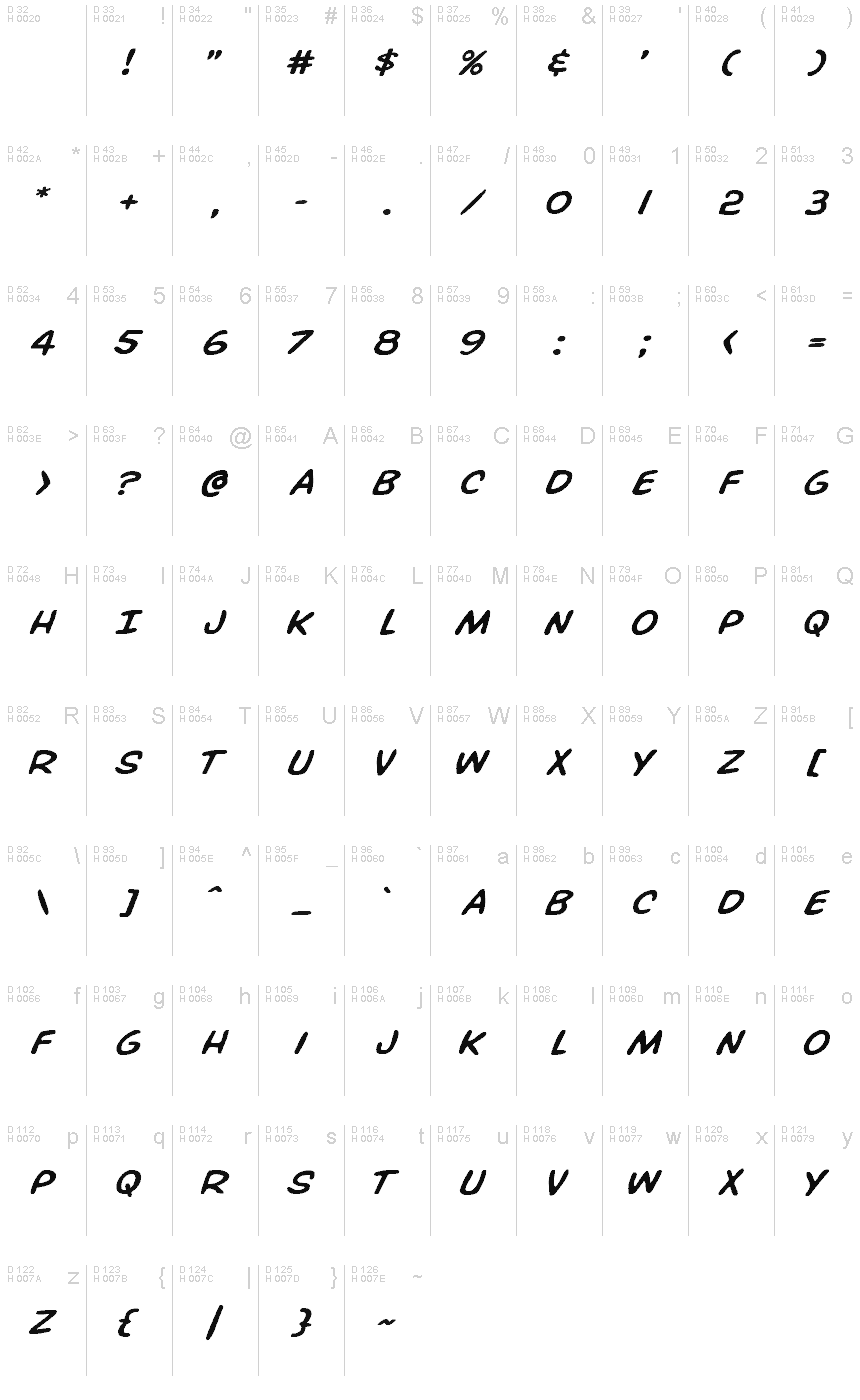
Overstreet Bible Expanded Italic is a captivating font that exudes a playful, comic-inspired essence. Designed by Daniel Zadorozny, this display typeface boasts an unmistakable vintage charm, with its angular strokes and exaggerated curves adding a touch of whimsy to any design.
The font's distinct italic style lends a dynamic, energetic feel, making it an excellent choice for attention-grabbing headlines, posters, or branding materials. Its versatility extends to various design contexts, from retro-inspired layouts to modern, quirky compositions. Overstreet Bible Expanded Italic's unique character and strong visual presence make it a compelling option for designers seeking to infuse their work with a playful, eye-catching aesthetic.